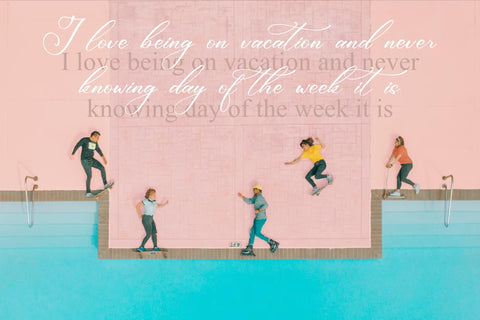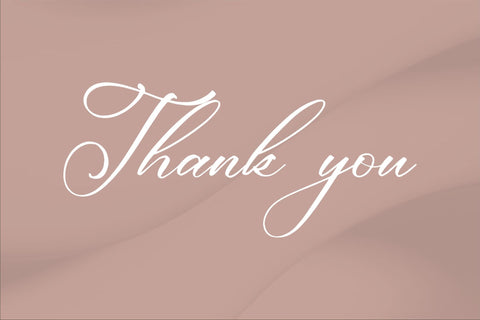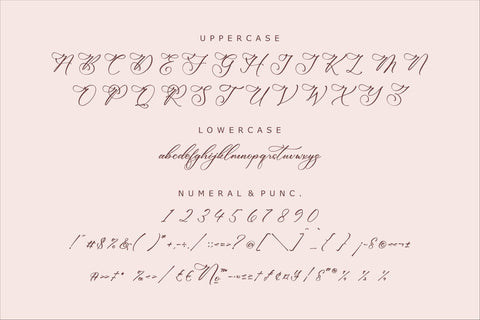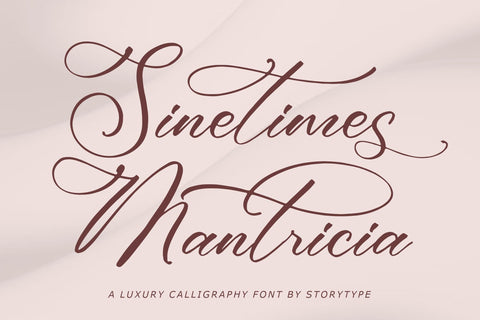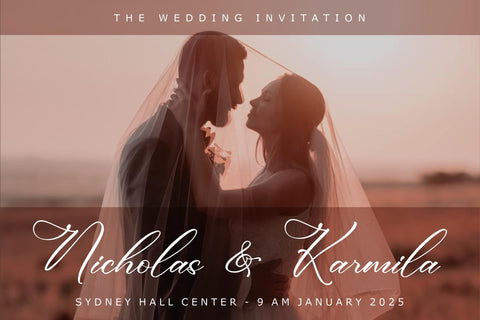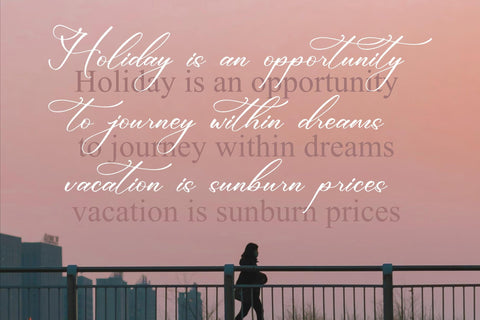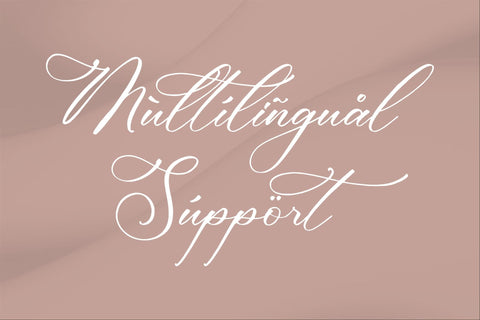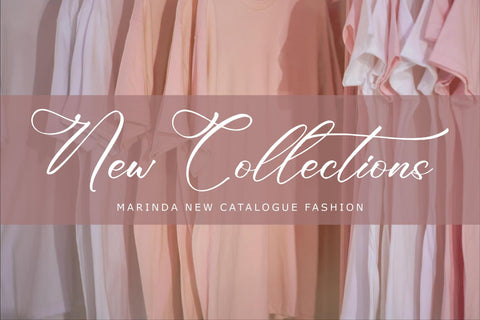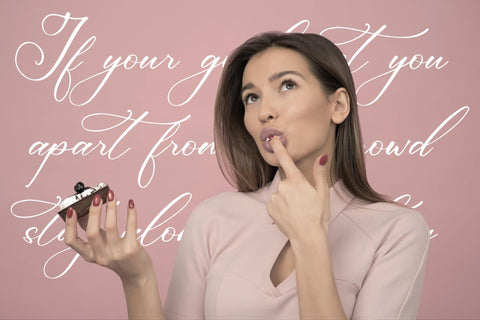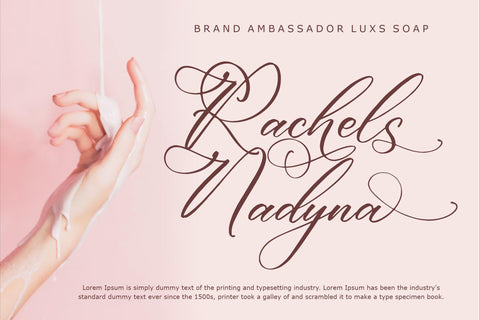
Sinetimes Mantricia - Luxury Calligraphy Font
Proudly present Sinetimes Mantricia - Luxury Calligraphy Font , created by Storytype,
A luxury script that has own unique style & modern look.